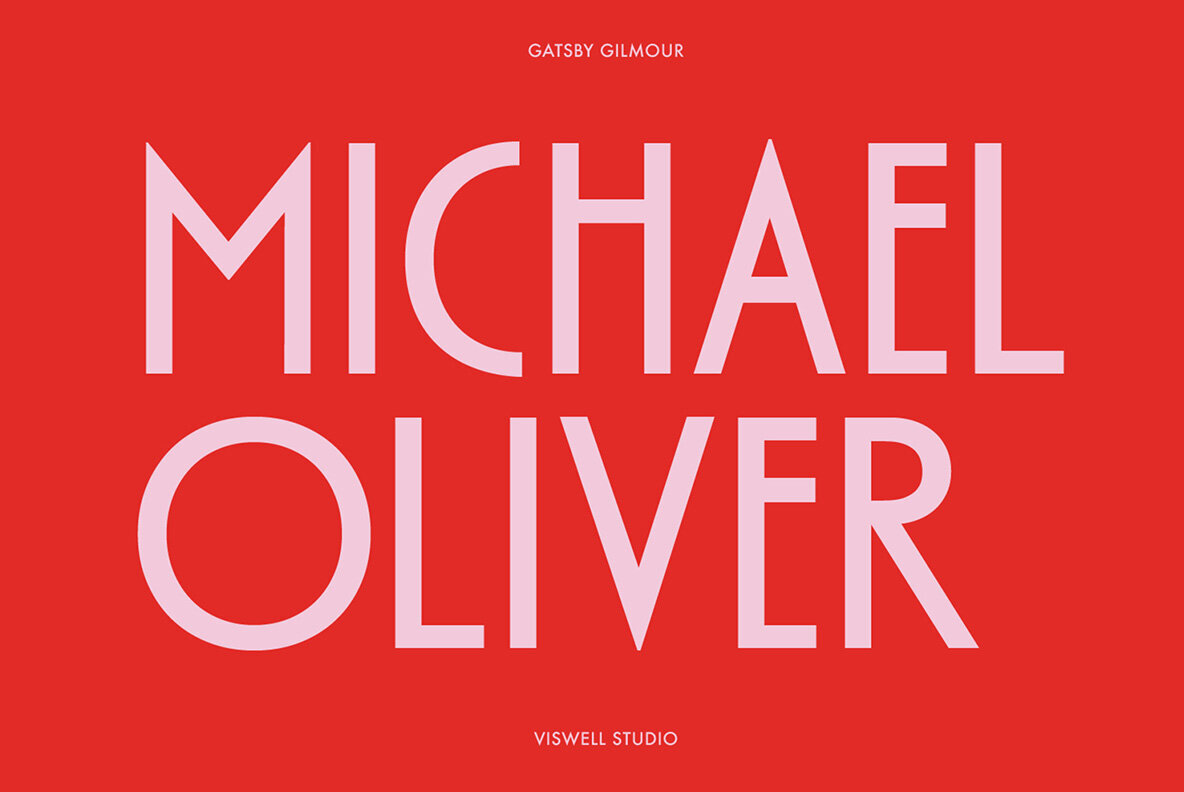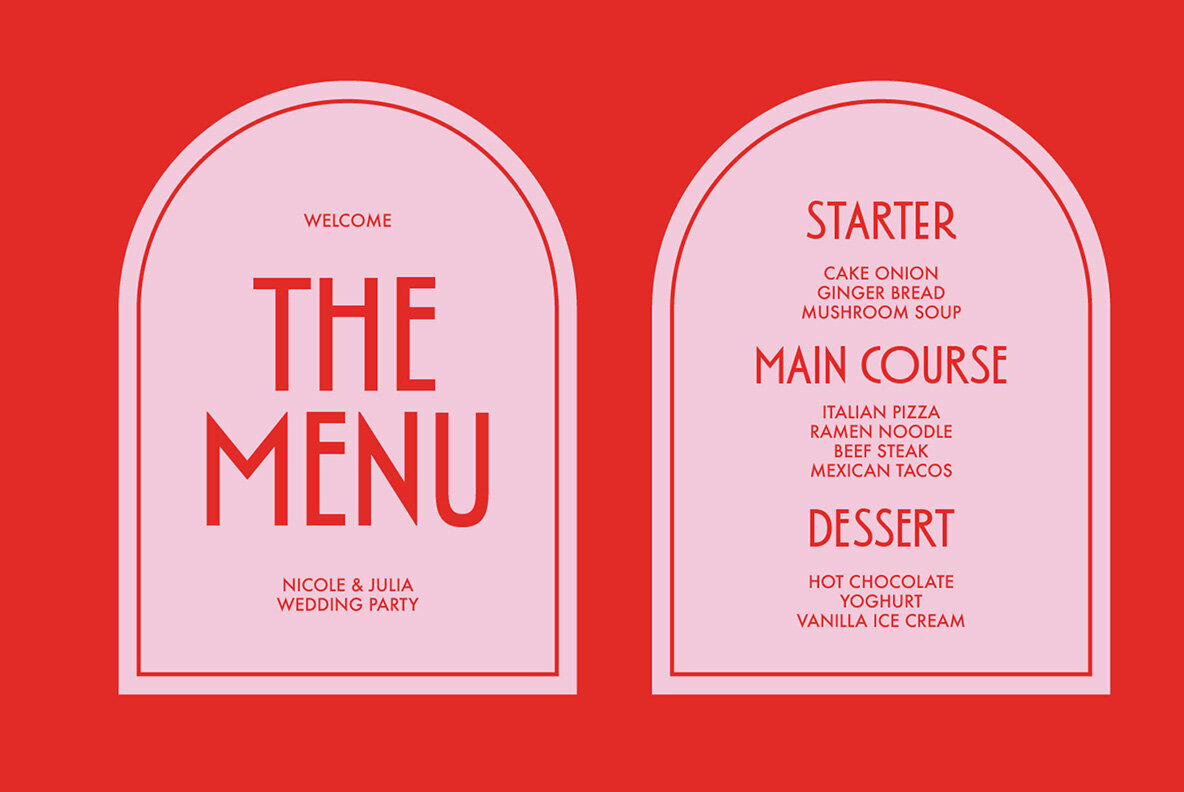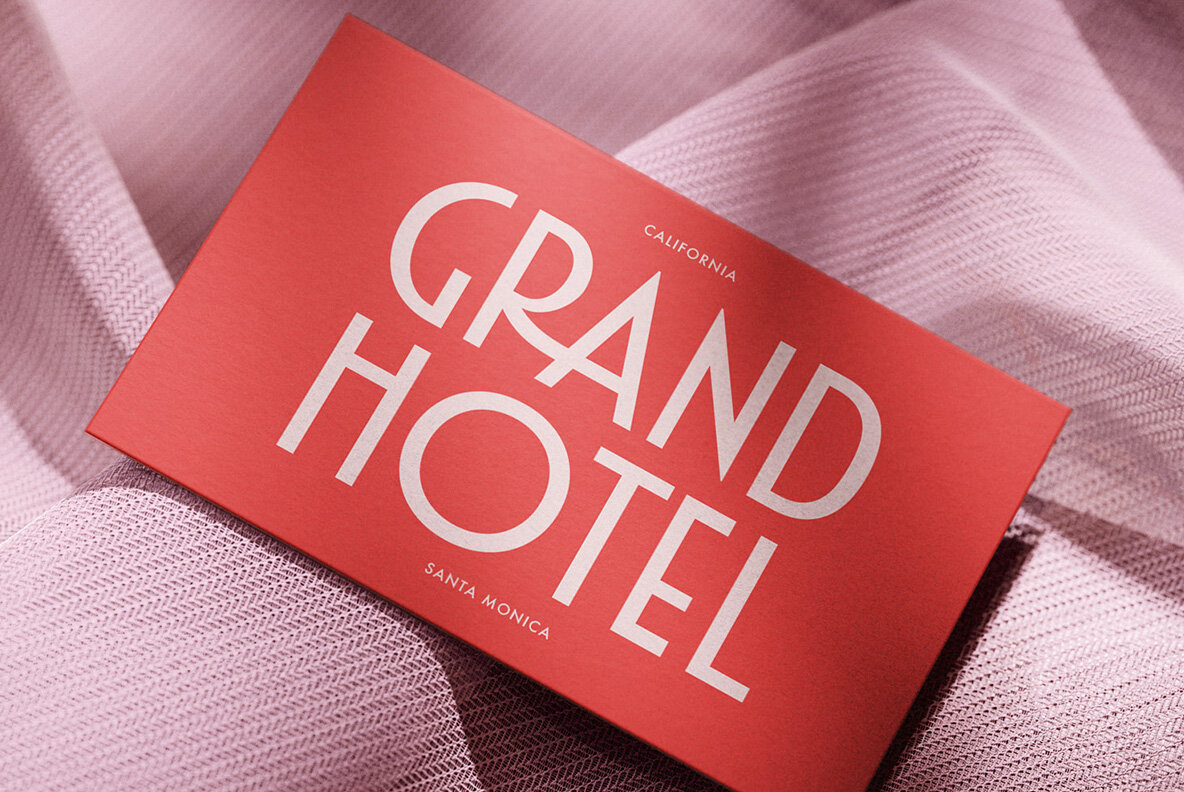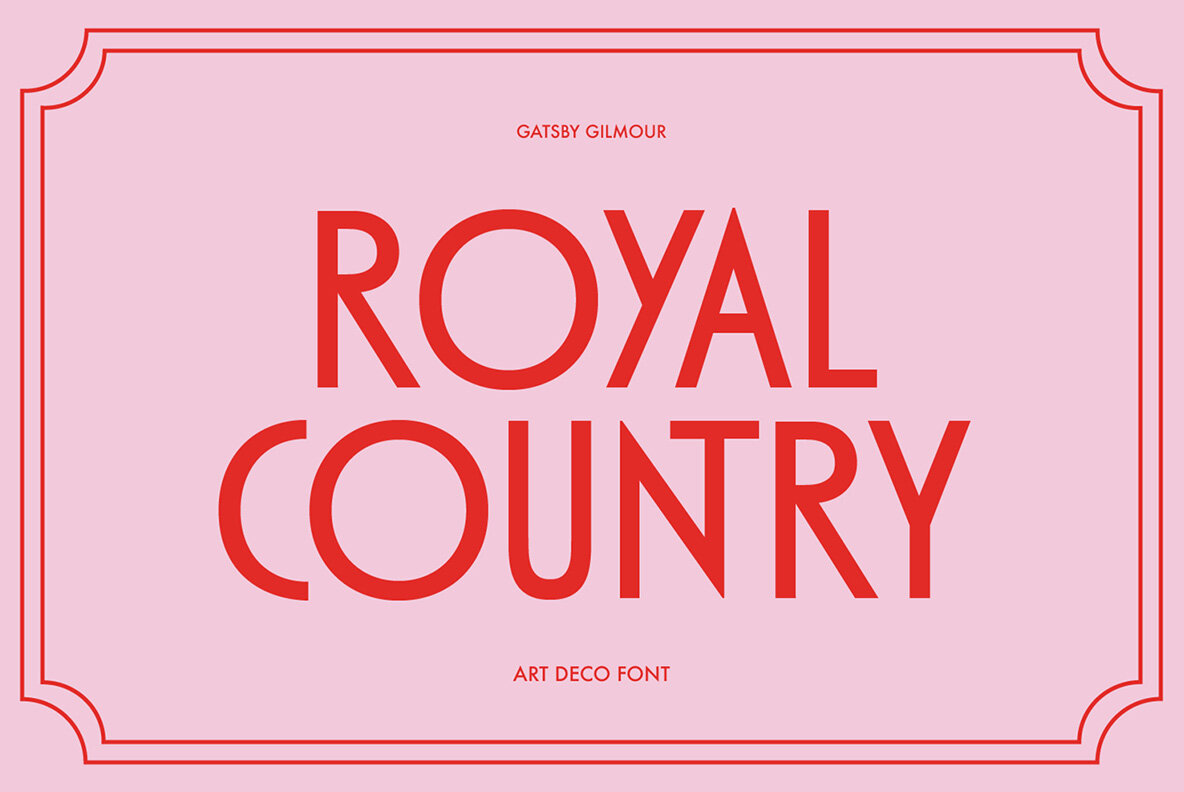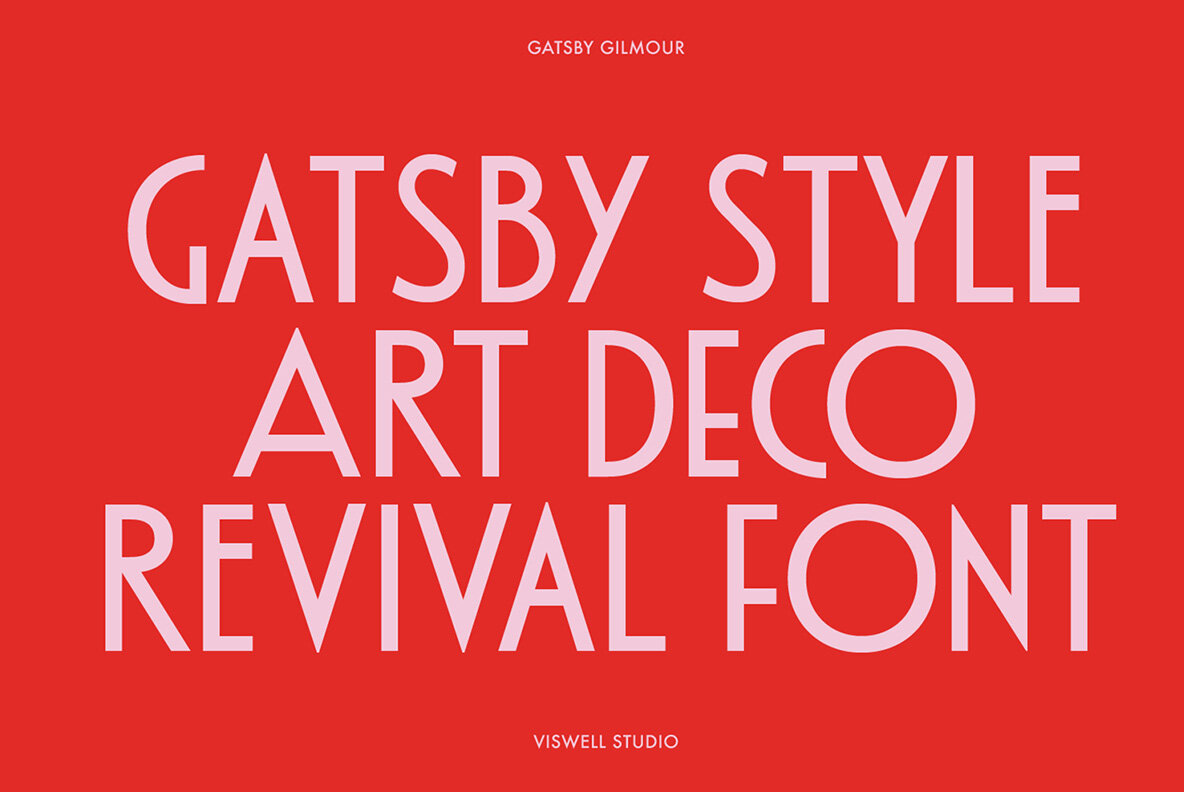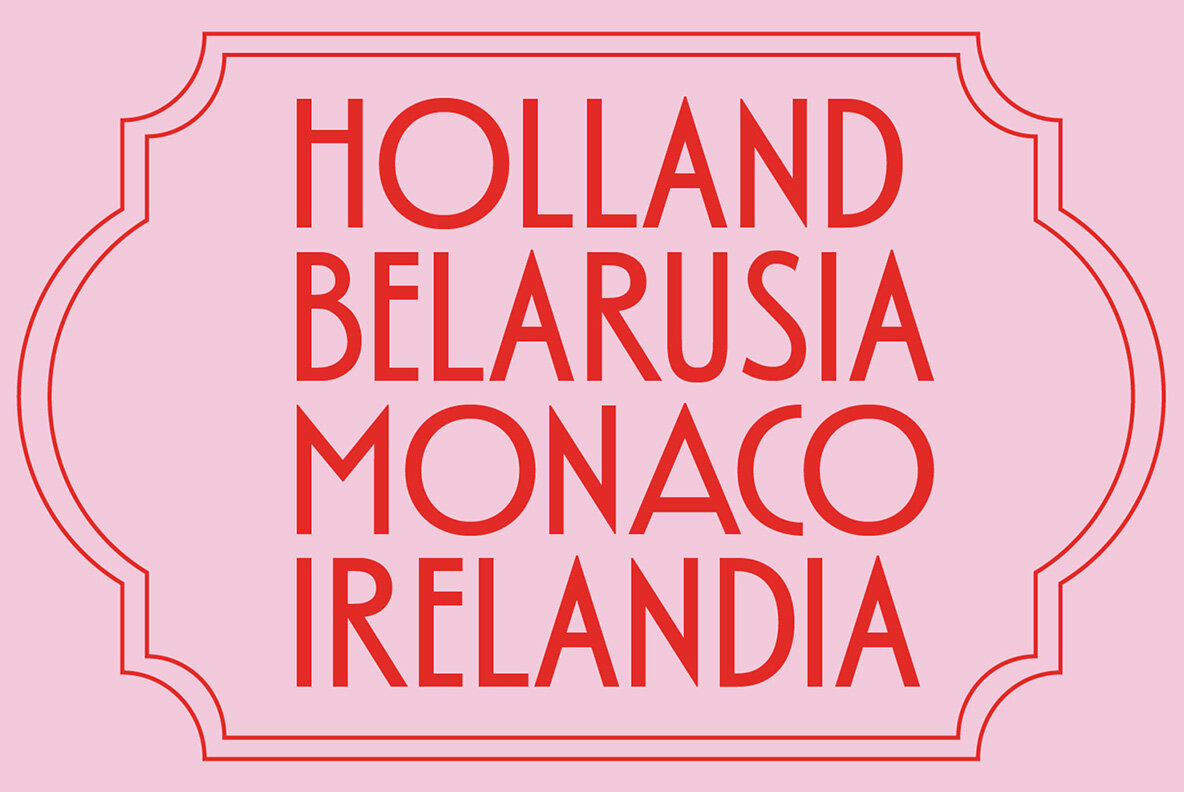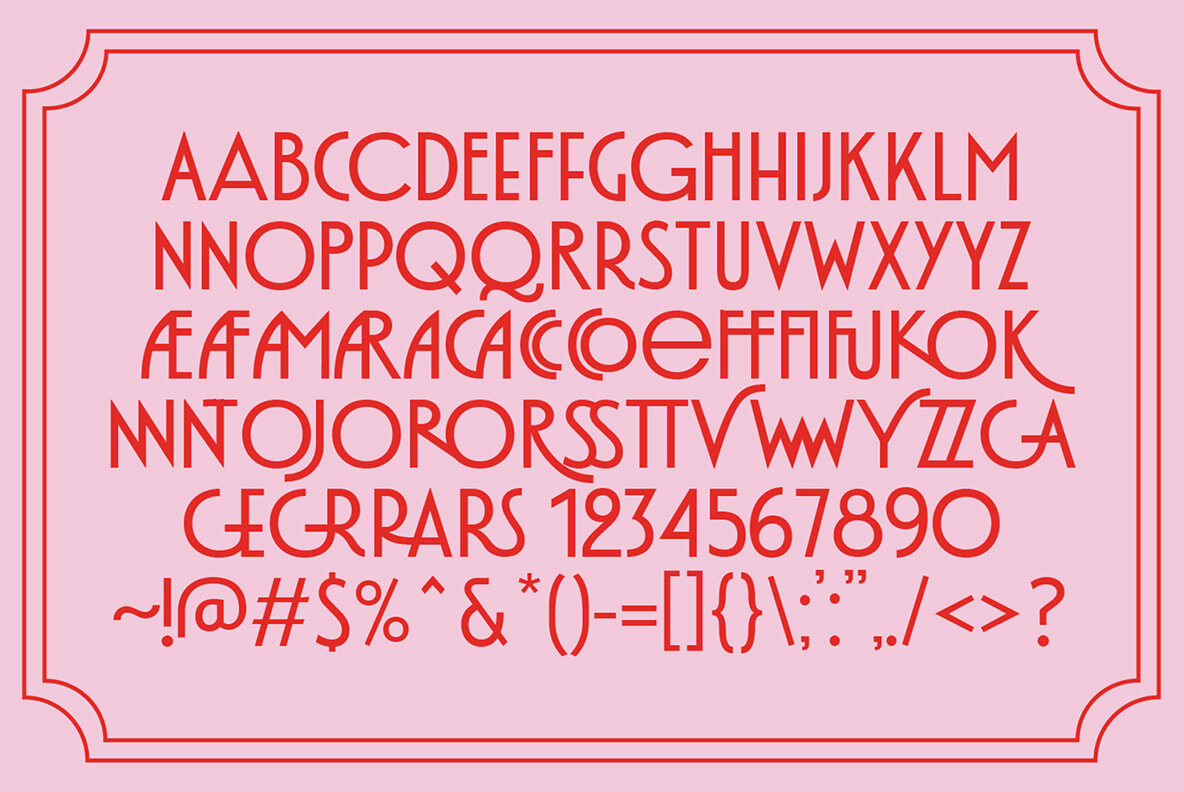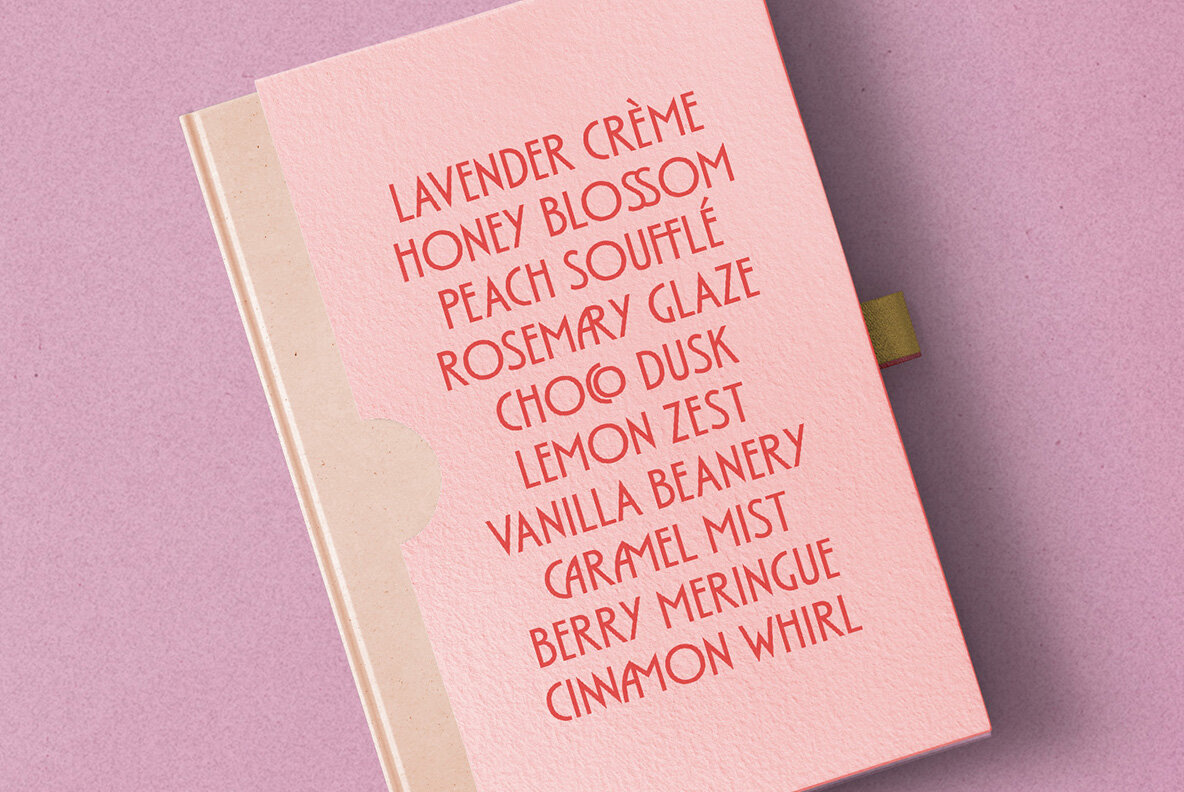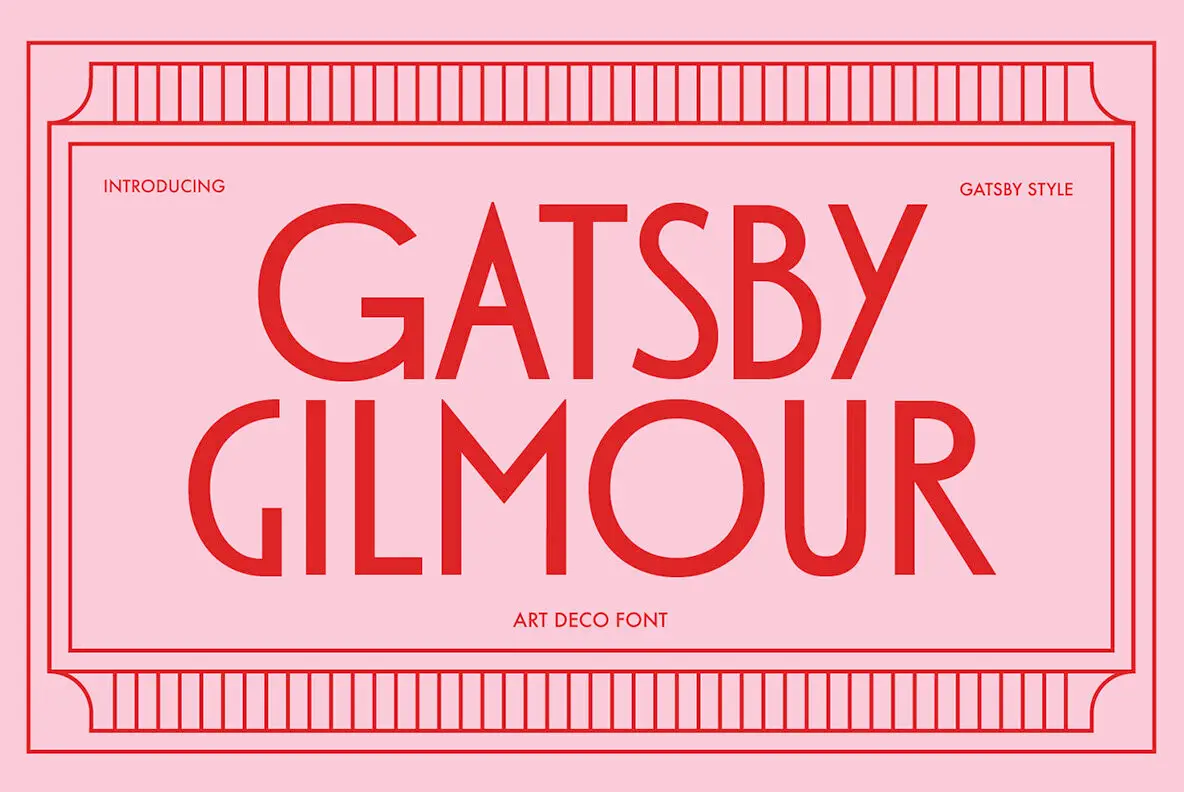
Gatsby Gilmour Font
Gatsby Gilmour Regular
Gatsby Gilmour is a sophisticated Art Deco-inspired typeface that embodies the timeless glamour and bold aesthetics of the 1920s. With its striking uppercase characters, clean lines, and geometric precision, this font is perfect for vintage-themed designs, luxury branding, editorial layouts, high-end packaging, and more. Whether you're creating logos, titles, invitations, or posters, Gatsby Gilmour brings a touch of Deco elegance and modern sophistication to every project